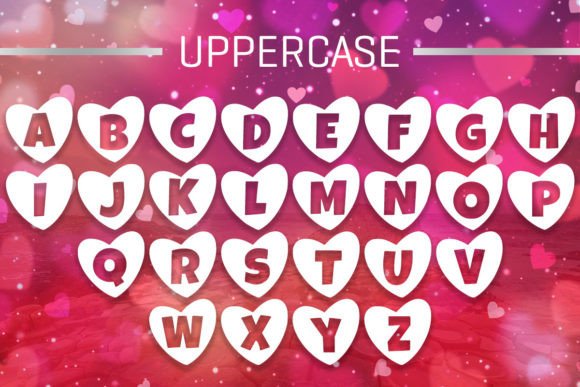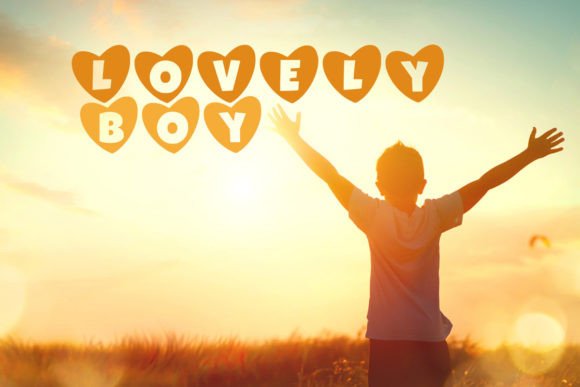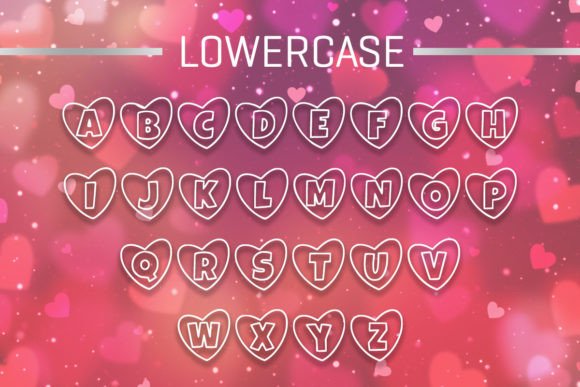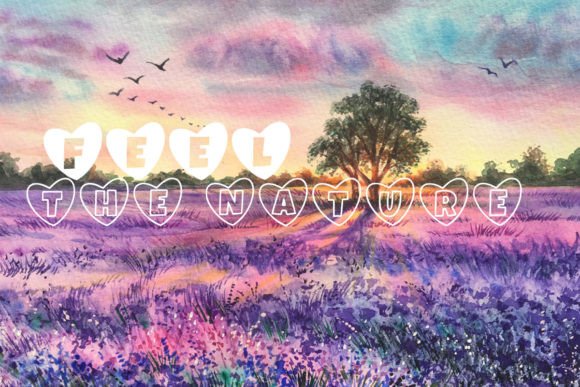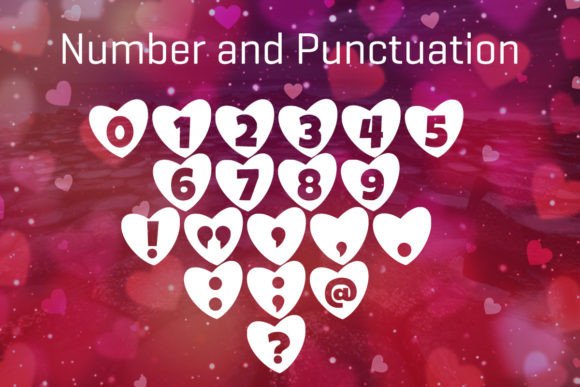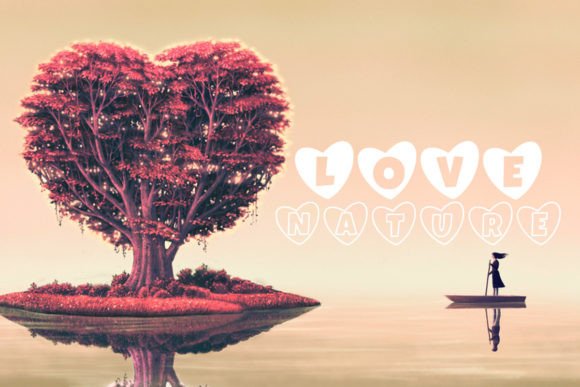
Introduction to Loovy Font
Have you ever found yourself staring at a blank canvas, struggling to bring your creative vision to life? The blank page can be intimidating, but what if you had the perfect tool to spark your imagination? That’s where the Loovy Font comes in – a game-changing design resource that’s about to revolutionize your creative projects.
With its unique, hand-crafted style, the Loovy Font is an absolute gem for designers. Whether you’re working on a branding project, a social media graphic, or a digital illustration, this font is sure to elevate your work to new heights. Its modern yet whimsical aesthetic makes it the perfect addition to any design library, and the best part? It’s available for free download with a transparent background, allowing you to seamlessly integrate it into your high-quality designs.
Key Features of Loovy Font
- High-quality design resource with a unique, modern aesthetic, perfect for creative projects.
- Designed with precision and care, ensuring crisp, clear text at resolutions up to 300 DPI.
- Comes in a compact size, making it ideal for use in a variety of design contexts, from logos and branding to digital displays and print materials.
Honest Review: Loovy Font
As a designer, I’m always on the lookout for high-quality design resources to elevate my creative projects. The Loovy Font has been a recent addition to my collection, and I’m excited to share my thoughts on it.
What works well for me about Loovy Font is its modern and playful style, which makes it perfect for a variety of creative projects, from branding to digital design. The font is available for free download, which is a major plus in my book. I appreciate that it comes with a transparent background, making it easy to use in different design contexts.
Here are some of the features I love about Loovy Font:
- Modern and playful style that’s versatile and fun
That being said, I do have a few reservations about Loovy Font. While it’s a great design resource, I wish it had more character variations to offer more depth and personality to my designs. ⚠️
Overall, I’m impressed with Loovy Font and would definitely recommend it to fellow designers. It’s a great addition to any design resource collection, and I’m looking forward to using it in my future creative projects. ✨
Tips for Getting the Most Out of Loovy Font
When using Loovy Font, consider the following tips:
- Use Loovy Font for headings and titles to add a touch of elegance.
- Combine Loovy Font with a transparent background for a modern look.
Loovy Font is suitable for various creative projects, including:
- Documents
High-Quality Results
Loovy Font is a high-quality font that can elevate your design projects. With its sleek and modern design, Loovy Font is perfect for designers who want to create visually appealing and professional-looking designs.